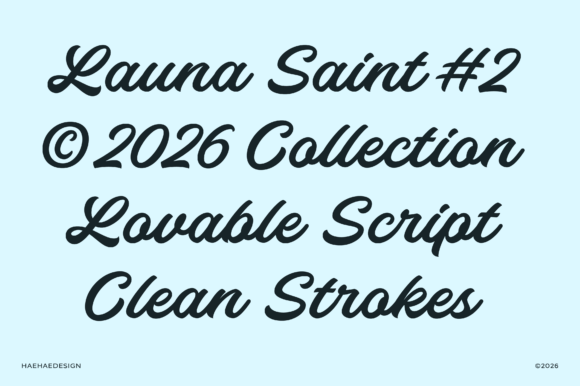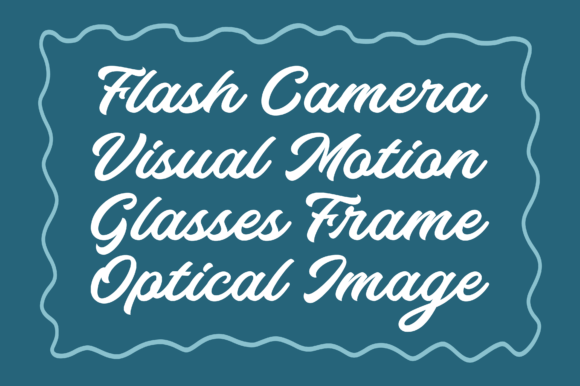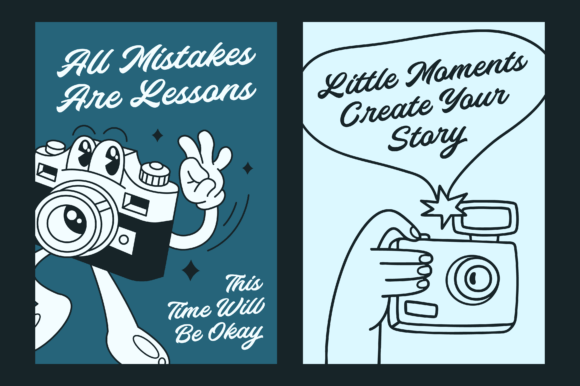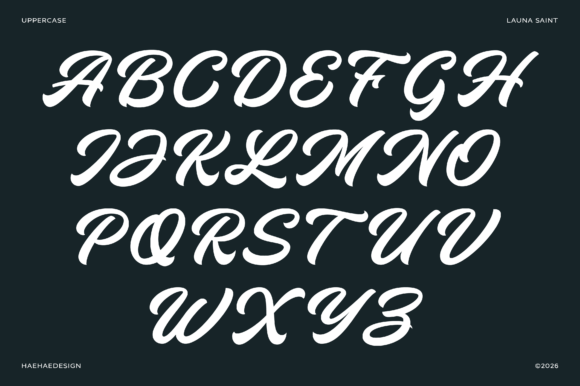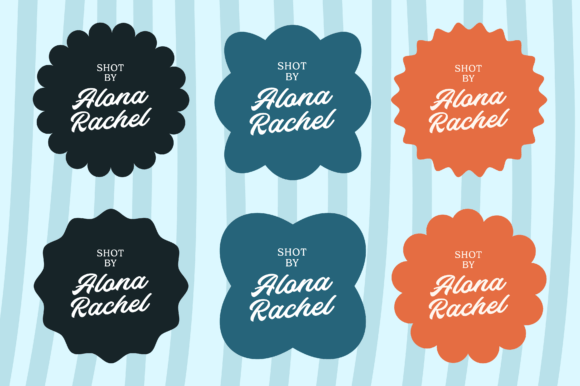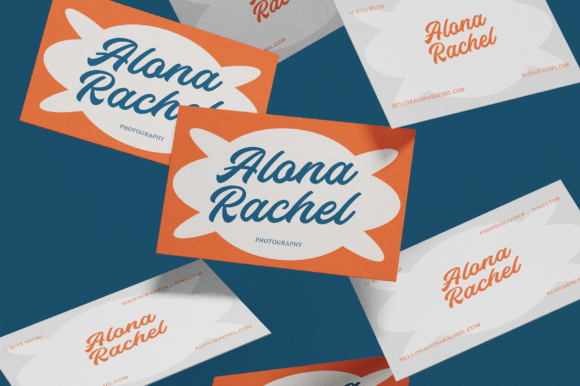
Introduction to Launa Saint Font
Remember that moment when you stumbled upon the perfect font for your creative project? The one that instantly elevated your design and gave it that extra oomph? For many designers, that moment is a treasure to behold. And for those who are about to discover the lovable Launa Saint Font, we’re excited to share that magic with you.
As a valuable resource for designers, Launa Saint Font offers a unique blend of modern brush lettering and effortless style. Its bold, clean strokes and smooth, rhythmic flow make it an exceptional choice for a wide range of creative applications, from lifestyle branding to personalized stationery and social media graphics. With its high-quality design and transparent background, this font is a must-have for any design project.
Whether you’re working on a new logo, blog header, or social media campaign, Launa Saint Font is sure to deliver a sense of approachable elegance and handcrafted sincerity to every word. In this article, we’ll delve into the world of this wonderful font and explore its many benefits and uses.
Key Features of Launa Saint Font
- Launa Saint Font features a transparent background, allowing for versatile usage in various design applications.
- Font family includes multiple styles and weights, providing a comprehensive set of design options.
- Launa Saint Font is optimized for use at high resolutions, making it ideal for printing and digital applications.
- Unique, elegant design makes it suitable for a wide range of creative projects, from branding to editorial content.
Honest Review: Launa Saint Font
As a designer, I’m always on the lookout for high-quality design resources that can elevate my creative projects. The Launa Saint Font is one such resource that caught my attention. Here’s my honest review.
- ✨ Beautiful, elegant design that’s perfect for luxury or high-end branding
- ✨ Comes with a transparent background, making it easy to customize and use in various design projects
- ✨ High-quality font that’s well-suited for print and digital design
- ⚠️ Limited character set, which may be a drawback for designers who need a wide range of characters
- ⚠️ Not suitable for bold or playful branding, as it’s more elegant and refined
Overall, I’m impressed with the Launa Saint Font. It’s a high-quality design resource that’s perfect for designers working on luxury or high-end creative projects. While it has some limitations, it’s a great addition to any designer’s toolkit.
Launa Saint Font
Launa Saint Font is a versatile and high-quality design resource perfect for any creative project. Its transparent background makes it easy to integrate into various designs, from digital to print.
Tips for Getting the Most Out of Launa Saint Font
To get the most out of Launa Saint Font, experiment with different font sizes, colors, and combinations to create unique and eye-catching designs. You can also use the font in conjunction with other design elements, such as images and graphics, to create a cohesive and professional look.
Launa Saint Font is perfect for a variety of creative projects, including:
• Business cards and letterheads
• Brochures and flyers
• Social media graphics and posts
• Website headers and footers